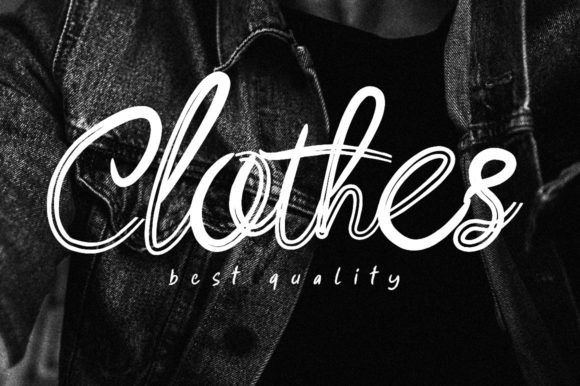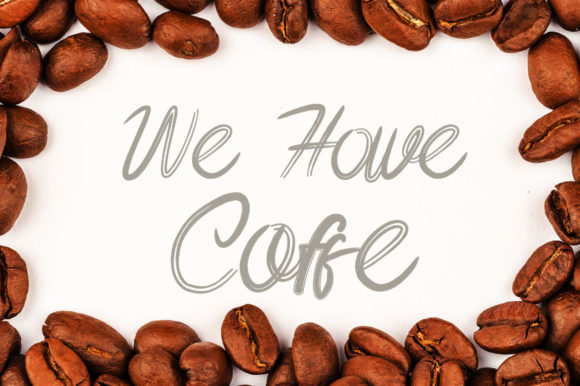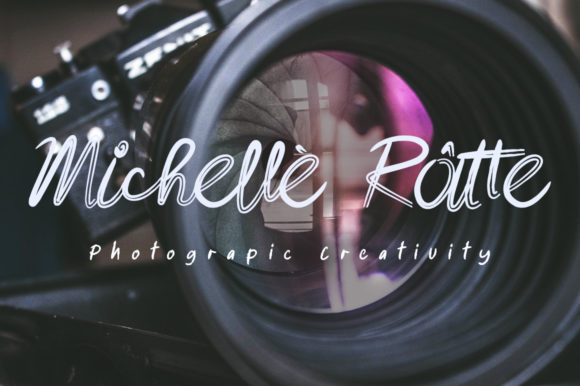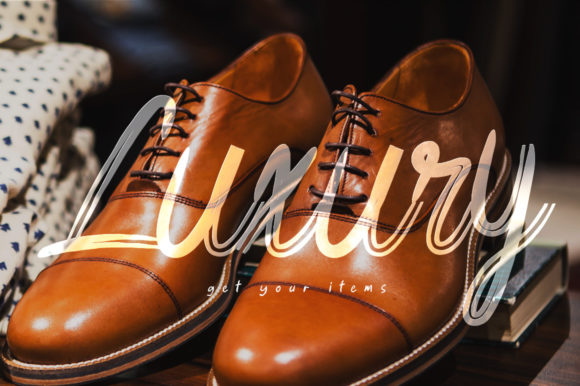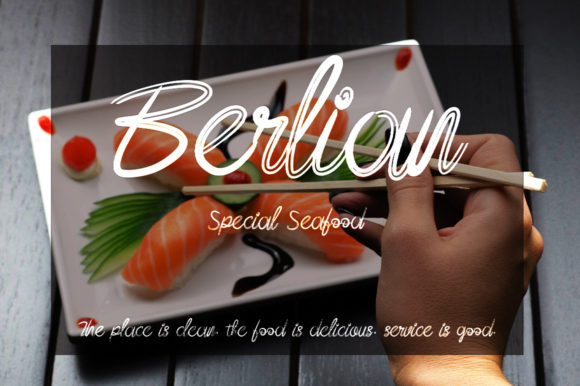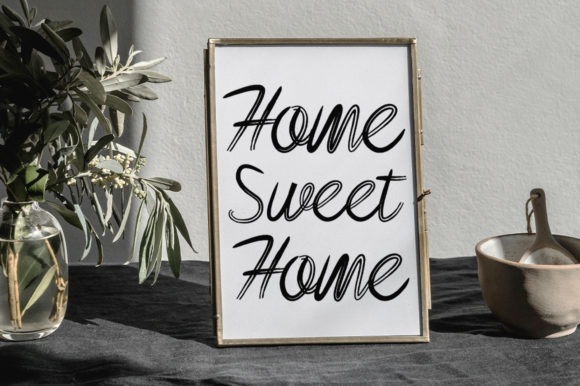
Introduction to Mataram Brush Font
As designers, we’ve all been there – stuck in a creative rut, searching for the perfect font to bring our vision to life. And then, like a breath of fresh air, we stumble upon a gem that makes our hearts skip a beat. For those who crave a unique touch in their design projects, the Mataram Brush Font is a game-changer.
This beautiful and modern script typeface boasts a rough texture that adds an edgy coolness to any design. Whether you’re working on a fashion label, a magazine spread, or a wedding invitation, the Mataram Brush Font is the perfect addition to elevate your creative project. With its high-quality design and transparent background, it’s a versatile resource that’s sure to make a lasting impression.
Key Features of Mataram Brush Font
- High-quality design resource ideal for creative projects, including invitations, posters, and more
- Unique brush font style with a transparent background, allowing for easy layering and customization
- Available in multiple sizes, making it suitable for various design applications
- Resolution-independent design ensures crisp and clear text display at any zoom level
- Perfect for designers looking for a high-quality, free design resource to elevate their creative project
Honest Review: Mataram Brush Font
I recently had the opportunity to work with the Mataram Brush Font, and I must say, it’s been a game-changer for my creative projects. This free download has quickly become a go-to design resource for me.
- High-quality brush strokes ✨ – The Mataram Brush Font features beautifully crafted brush strokes that add a touch of elegance to any design.
- Transparent background ✨ – The font’s transparent background makes it easy to layer and combine with other design elements.
What I love most about the Mataram Brush Font is its versatility. I’ve used it for everything from branding to packaging, and it always looks great.
However, I did encounter a few limitations ⚠️:
- Limited font sizes ⚠️ – The Mataram Brush Font is best suited for smaller font sizes. Attempting to use it for large font sizes can result in a loss of detail.
- Not ideal for complex text ⚠️ – While the font works well for short phrases, it can be difficult to read when used for longer blocks of text.
Overall, I’m impressed with the Mataram Brush Font. Its high-quality design and transparent background make it a valuable addition to any designer’s toolkit.
How to Use Mataram Brush Font
The Mataram Brush Font is a high-quality design resource that offers a unique and creative touch to any project. This font is perfect for designers looking for a free download that can elevate their work.
To get the most out of the Mataram Brush Font, use it with a transparent background to create a cohesive look. You can also experiment with different font sizes and styles to add depth to your design.
The Mataram Brush Font is perfect for creative projects such as logo design, branding, and digital marketing materials. It’s also great for adding a personal touch to your website or social media graphics.